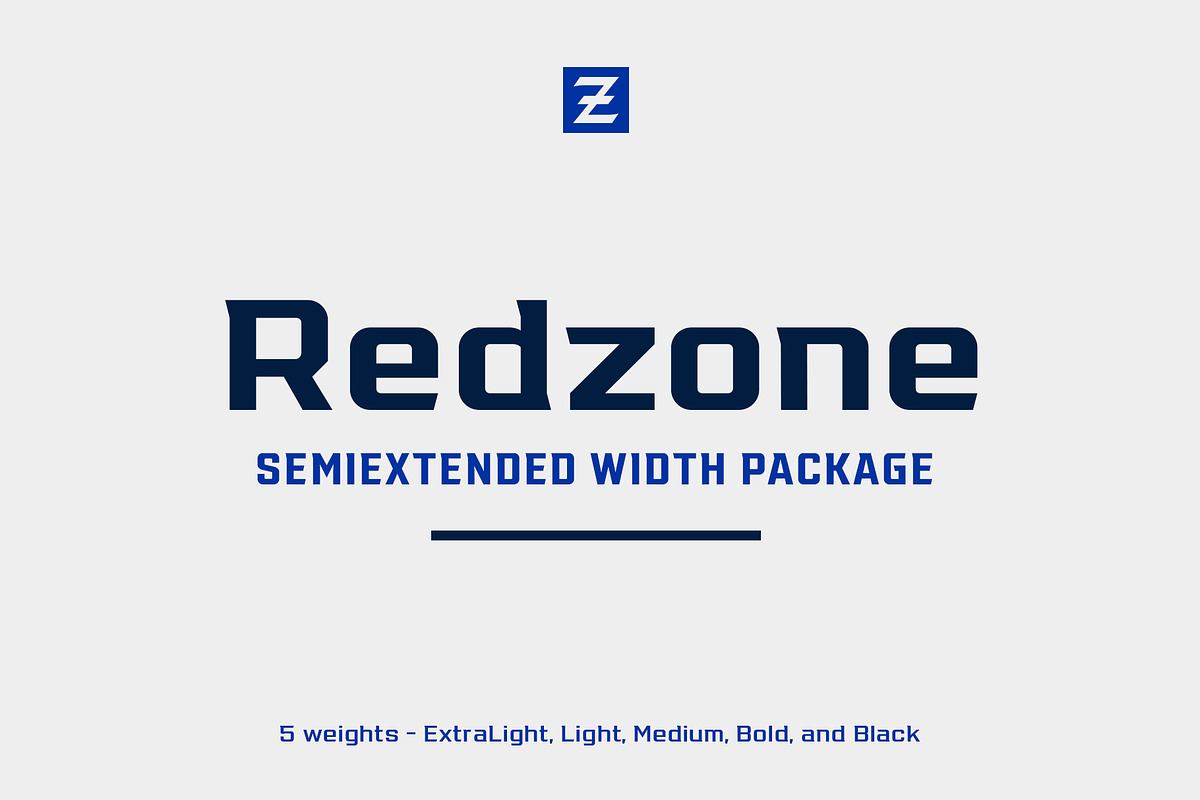
Please note, to use this font for commercial purposes, you must purchase the full version. Redzone Display is a bold, semi-extended font designed for maximum impact. With its unique and modern letterforms, this font is perfect for high-energy projects like logos, posters, headlines, and branding materials. Whether you're designing for sports, music, or any high-visibility project, Redzone Display adds strength and clarity to your designs. Test it out and enjoy free download access for personal use. Experience the bold, dynamic style of Redzone Display – SemiExtended Font Free Download before purchasing the commercial license. Make your designs stand out with the striking style of Redzone Display.